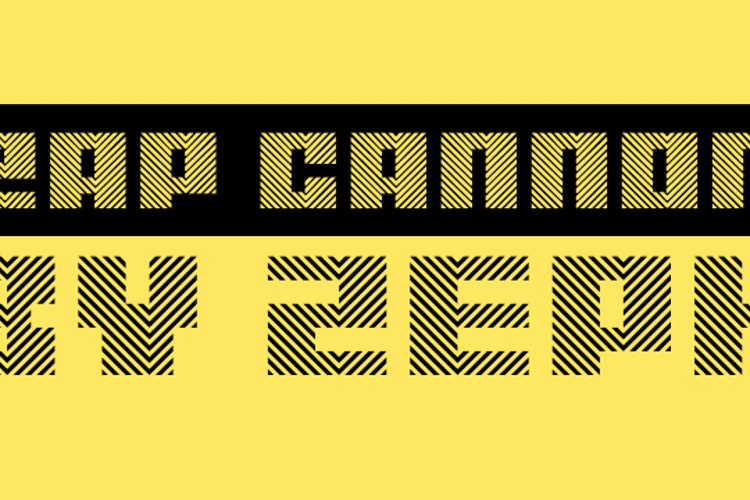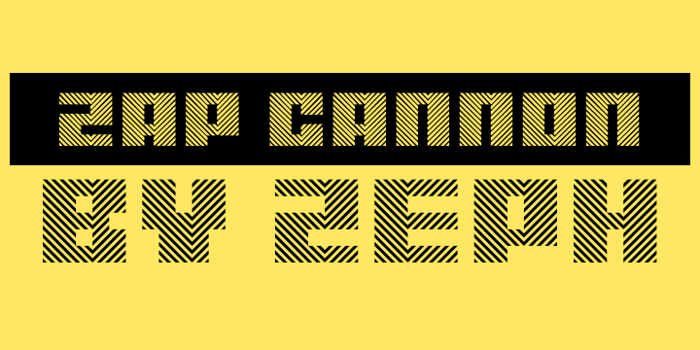
Zap Cannon Font
by Pixel Kitchen
This has many uses! It works as a pixel font or a high-res one, and can generate a surprising range of visual effects.